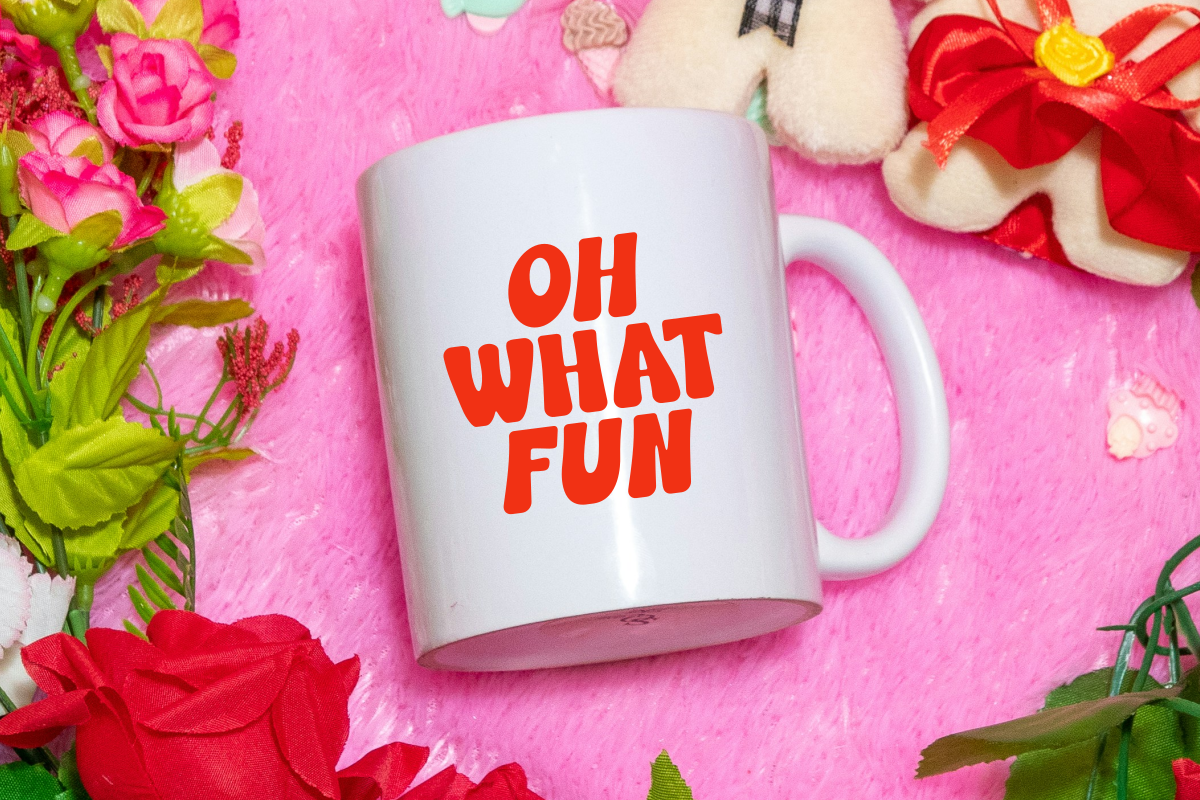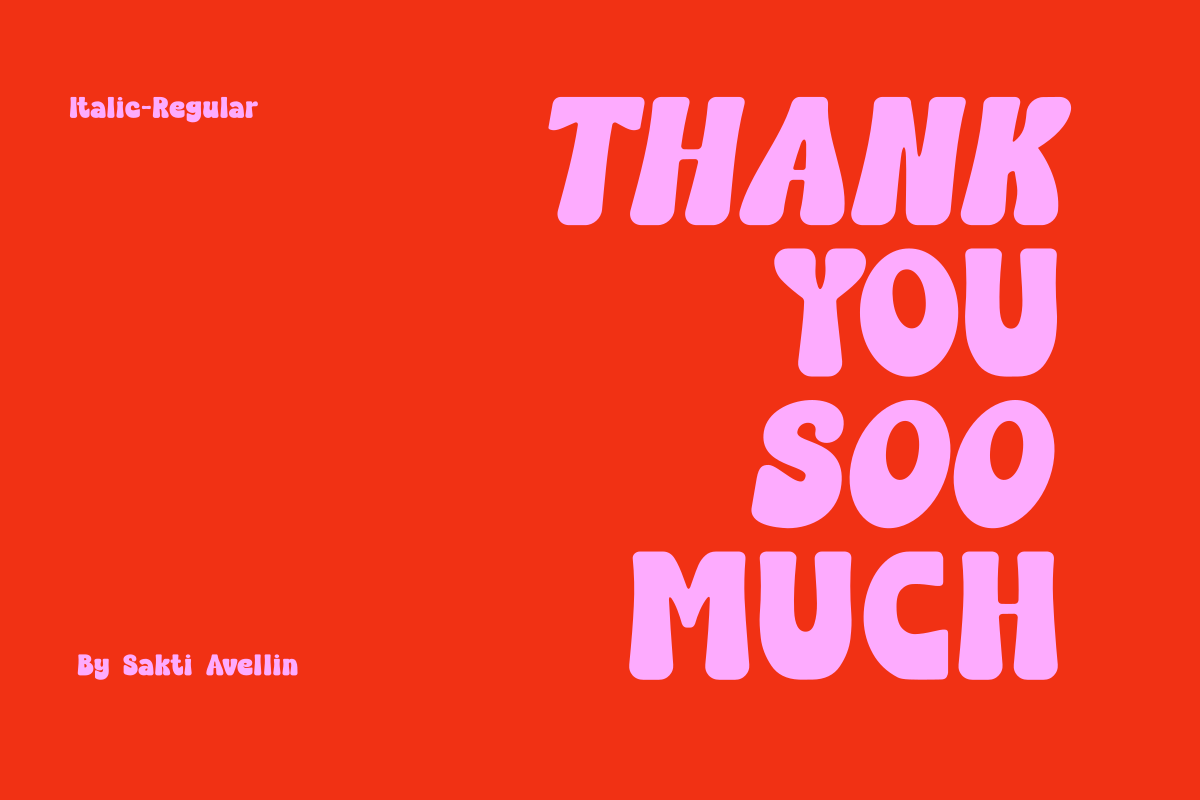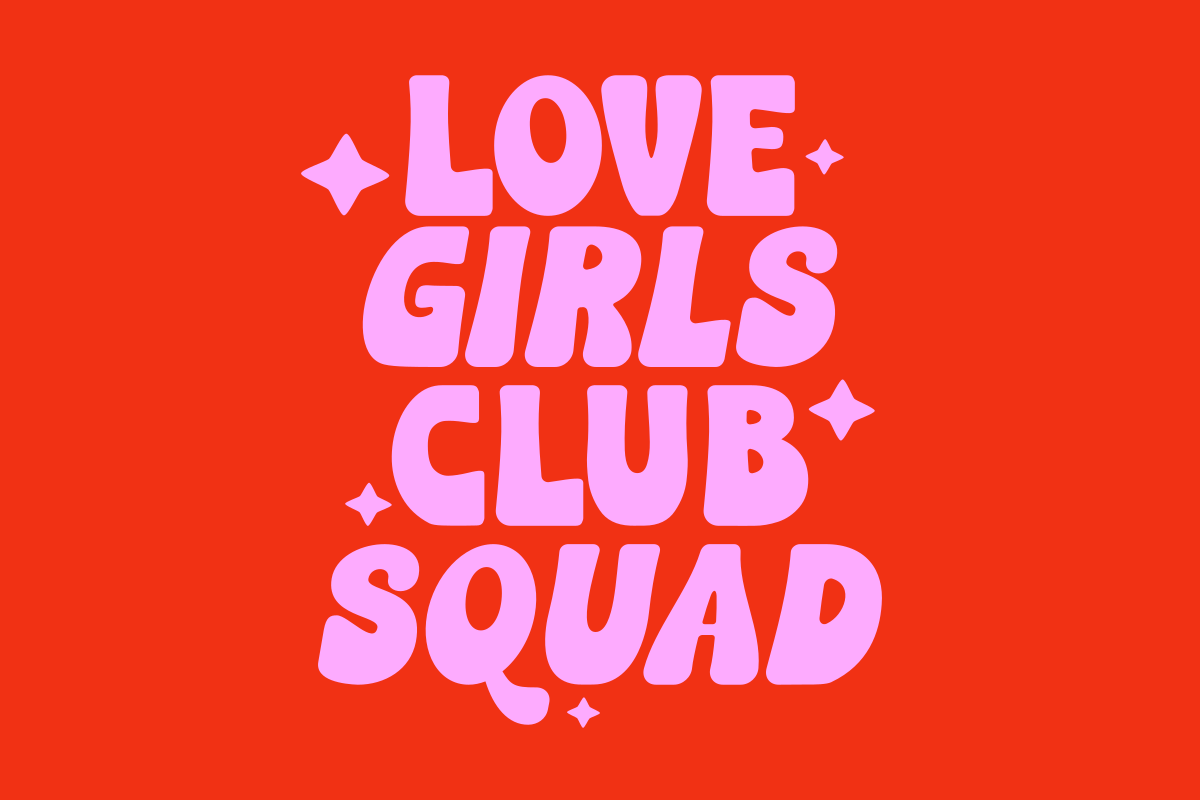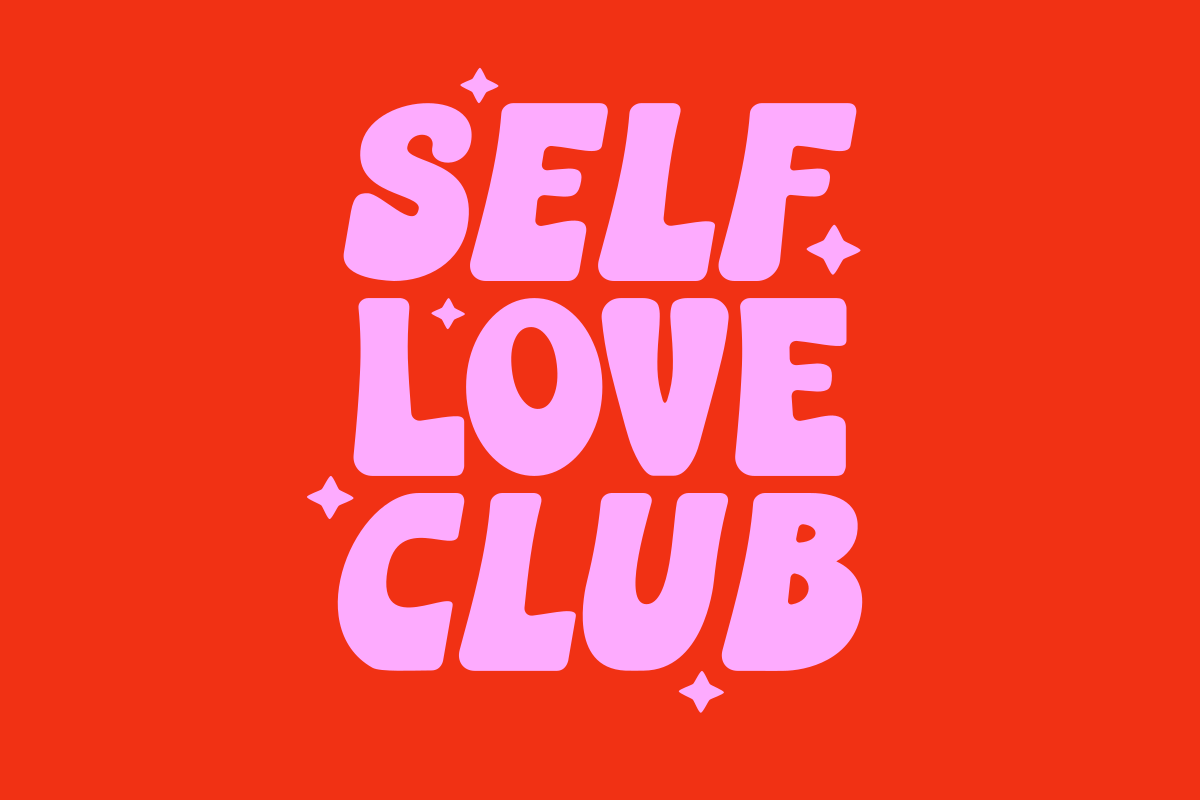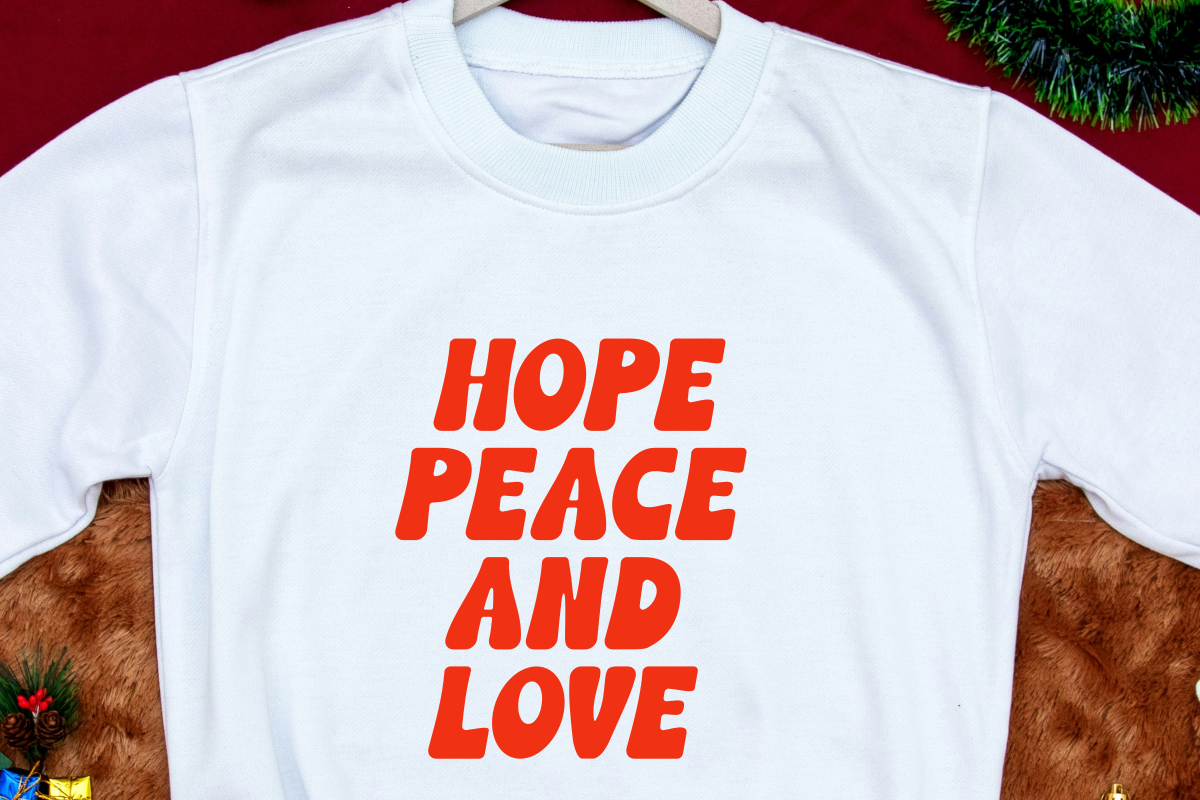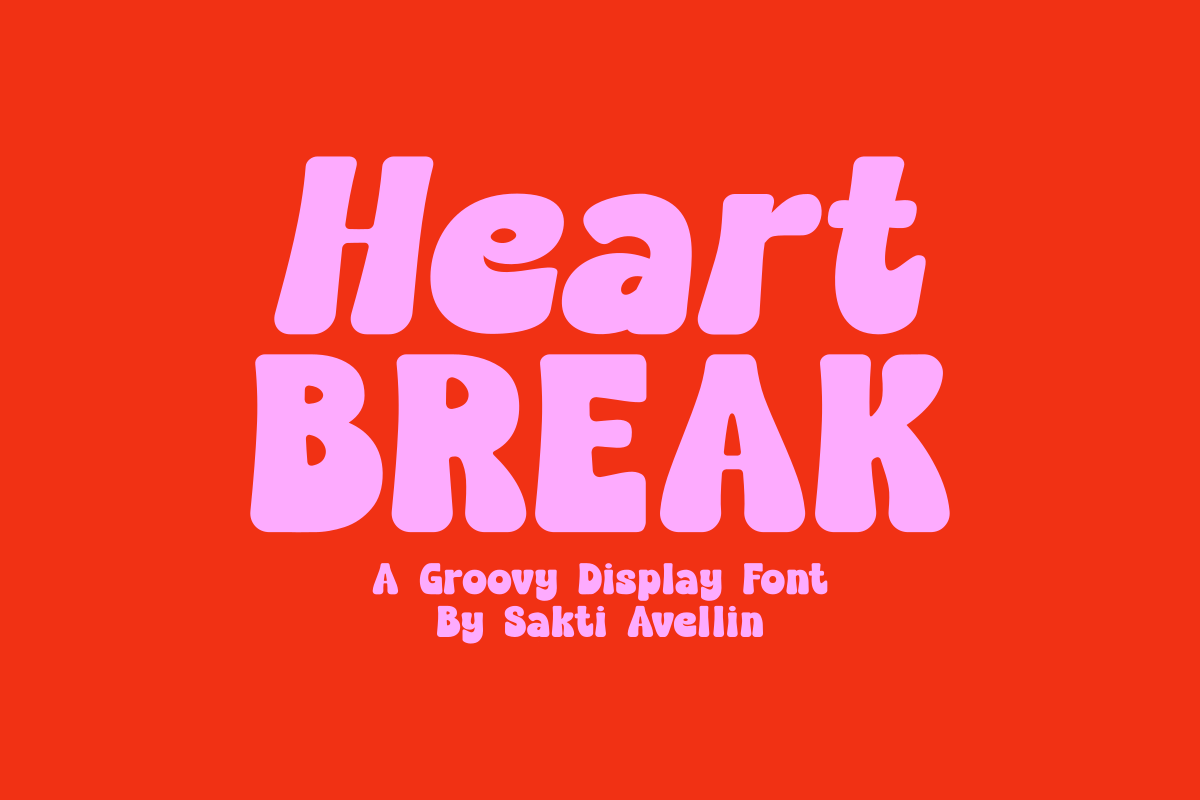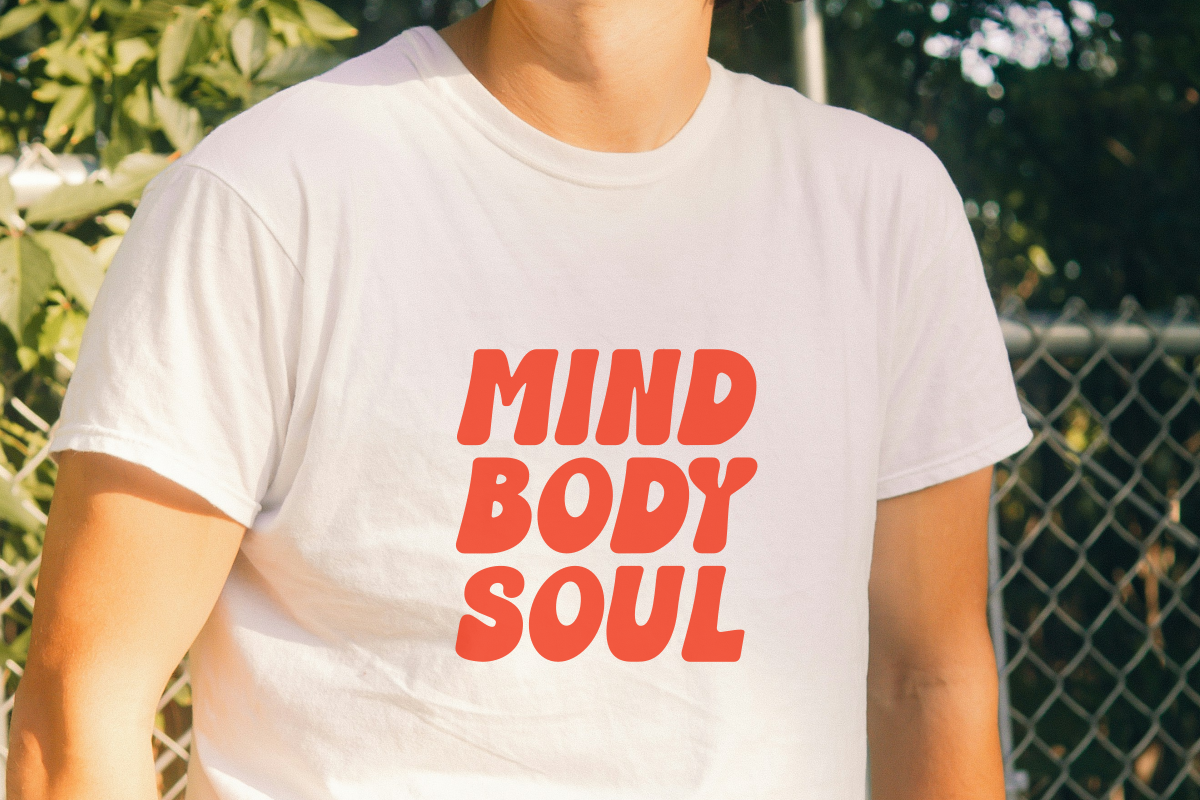
Heart Break - Groovy Display Font
Heart Break is a bold, expressive, and incredibly fun groovy display font that perfectly captures the soulful and nostalgic spirit of the 1970s. This chunky retro font features thick, slanted letterforms with a playful, rhythmic bounce, making it essential for retro branding, vibrant t-shirt prints, edgy sticker designs, and eye-catching social media graphics. Its high-impact, bold style ensures it stands out as a powerful display typeface for headlines and product packaging, appealing to designers seeking a mix of vintage funk and modern aesthetic charm. Give your creative projects a touch of nostalgic energy with the striking look of this bold groovy font!